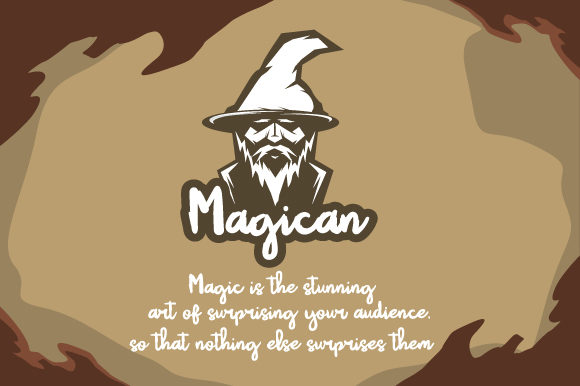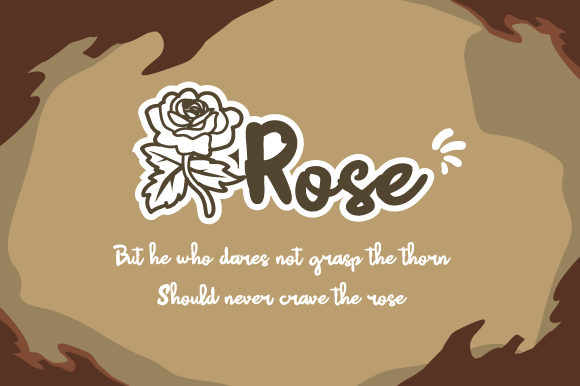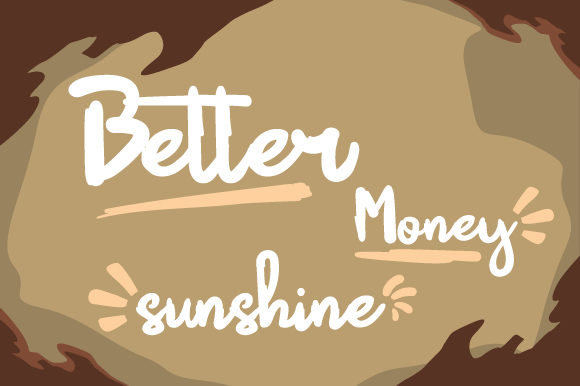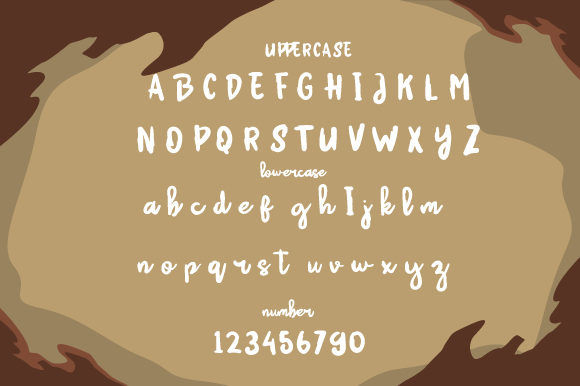
Introduction to Hikata Font
Do you ever find yourself scrolling through your favorite design inspiration board, stuck on a single image that perfectly captures the essence of your creative vision? For many designers, that ‘aha’ moment is a result of discovering a unique and captivating font that elevates their project to the next level. For those who have been searching for that perfect design resource, we’re excited to introduce you to the Hikata Font – a stunning handwritten font that’s about to become your new go-to.
With its authentic and endearing feel, Hikata Font is the perfect choice for designers looking to add a personal touch to their creative projects. Whether you’re working on a social media campaign, a DIY project, or a high-quality design for a client, this font is sure to bring your vision to life.
Key Features of Hikata Font
- High-quality, vector-based font design suitable for various creative projects, including logos, graphics, and branding materials.
- Unique characteristics: elegant, minimalist design with a touch of Japanese inspiration, making it perfect for creating a sophisticated and modern look in various creative projects.
Honest Review: Hikata Font
As a designer, I’m always on the lookout for high-quality design resources to elevate my creative projects. Recently, I stumbled upon the Hikata Font, and I must say it’s a gem. ✨
What works well for me is its versatility. The font is perfect for both digital and print projects, and its clean design makes it easy to read. The font’s transparent background also allows for seamless integration with any background, making it a great choice for designers who want to add a touch of elegance to their work.
Here are some of the features that make the Hikata Font stand out:
- Perfect for digital and print projects
However, I do have one limitation to mention: ⚠️ the font is a bit limited in terms of its character set. While it’s perfect for most projects, it may not be suitable for those who require a more extensive character set.
Overall, I’m thoroughly impressed with the Hikata Font. It’s a great addition to any designer’s toolkit, and its high-quality design makes it a must-have for any creative project.
Common Use Cases and Tips
The Hikata Font is ideal for use in logos, branding materials, and other design projects where a high-quality, transparent background is required. Tips for getting the most out of the Hikata Font include using it in conjunction with other design elements, such as images and graphics, to create a visually appealing design.
Is the Hikata Font suitable for use in digital products, such as e-books or mobile apps?
Yes, the Hikata Font is designed to be highly legible and versatile, making it suitable for use in digital products, such as e-books, mobile apps, or websites. It’s a high-quality design resource that can help enhance the user experience and visual appeal of your digital products.